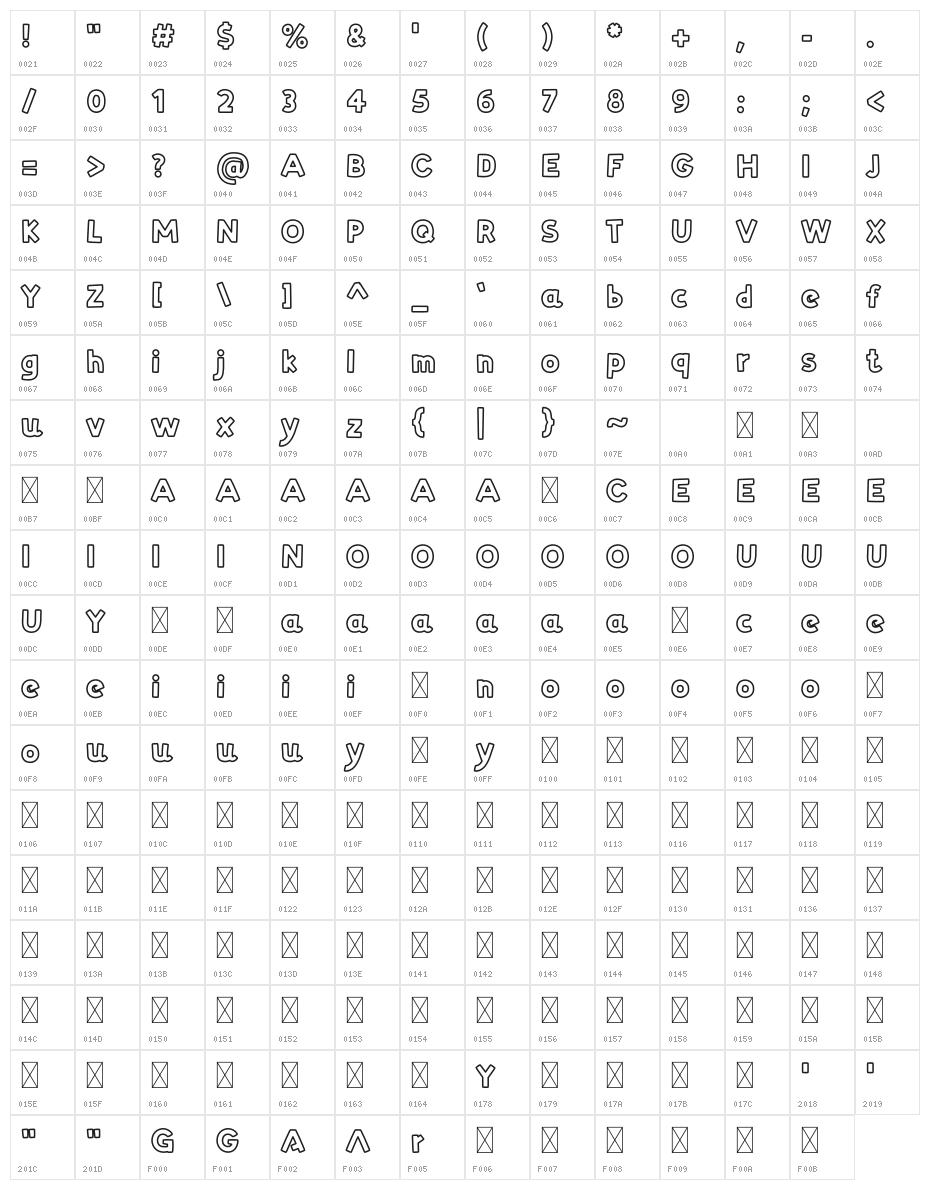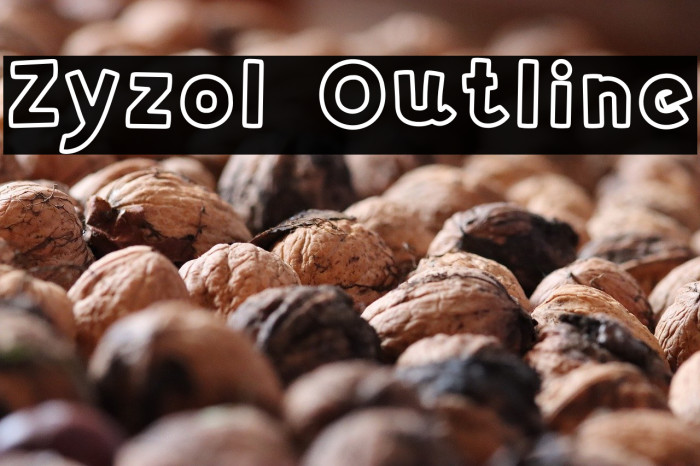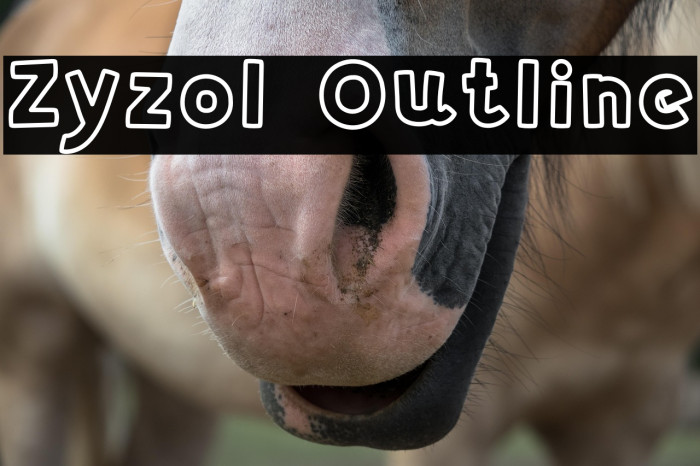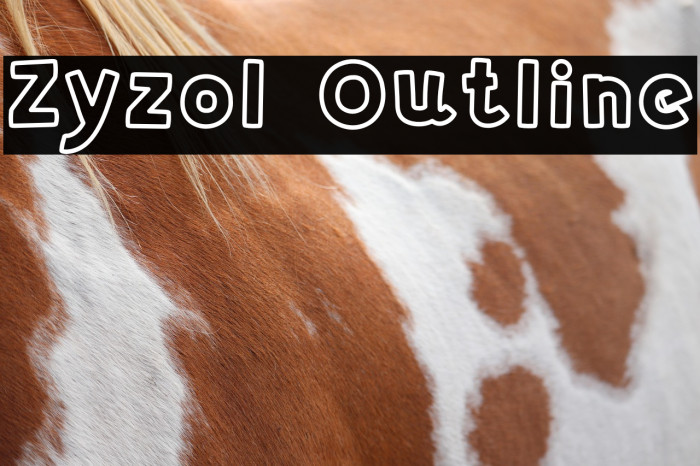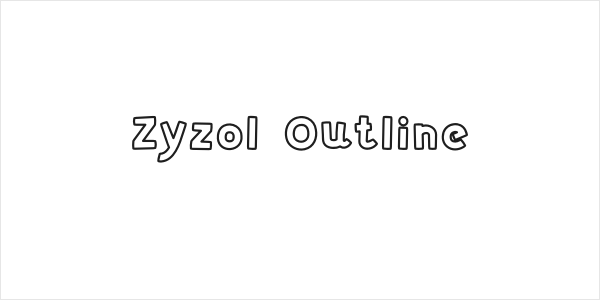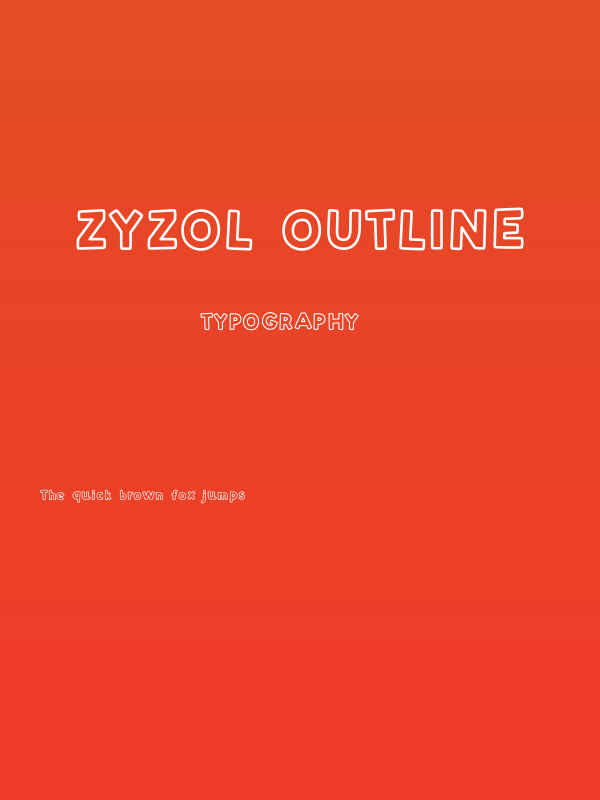
Zyzol Outline Font
Zyzol Outline Description
This font features a bold, outlined style that gives it a playful and eye-catching appearance. The characters are uniformly thick with a consistent outline that enhances readability while maintaining a fun and informal vibe. The uppercase and lowercase letters are well-proportioned, and the numbers are clear and distinct. Special characters are included, adding versatility for various design needs. The overall look is modern and suitable for projects that require a touch of creativity and boldness.
Proposed ProjectsIdeal for children's books, posters, logos, and playful branding materials.